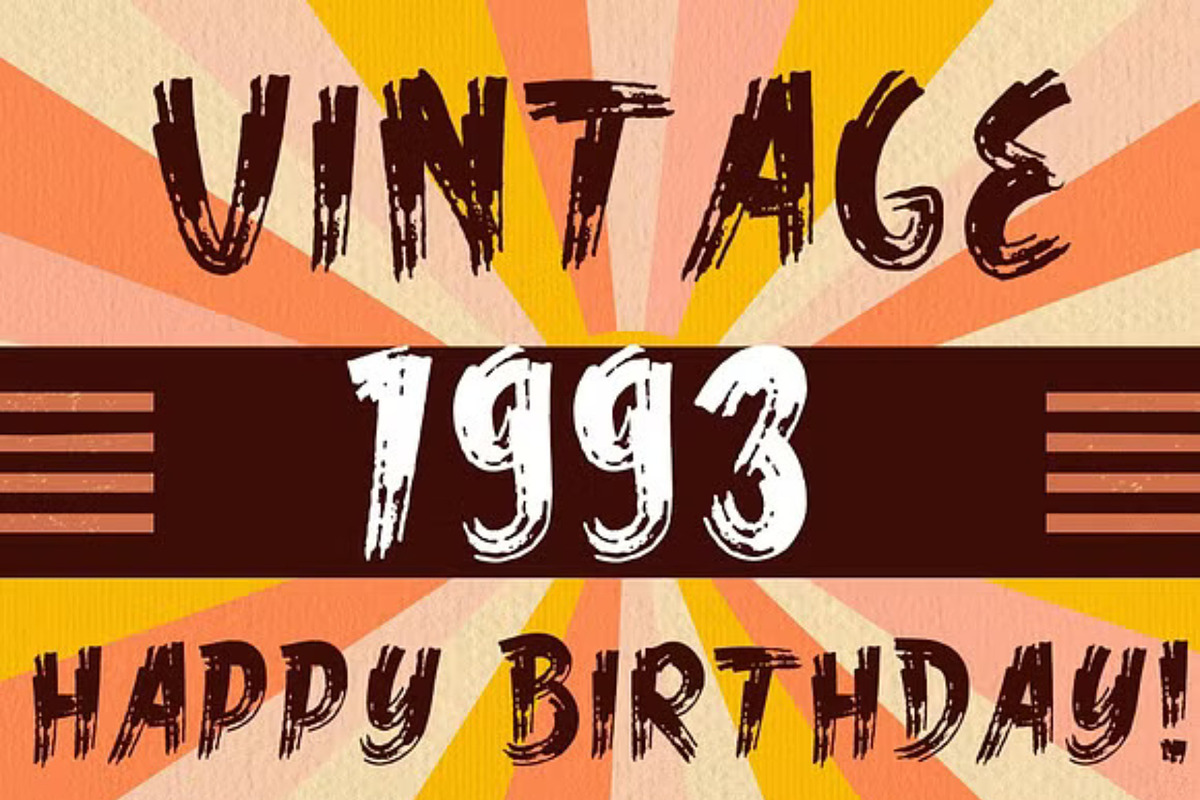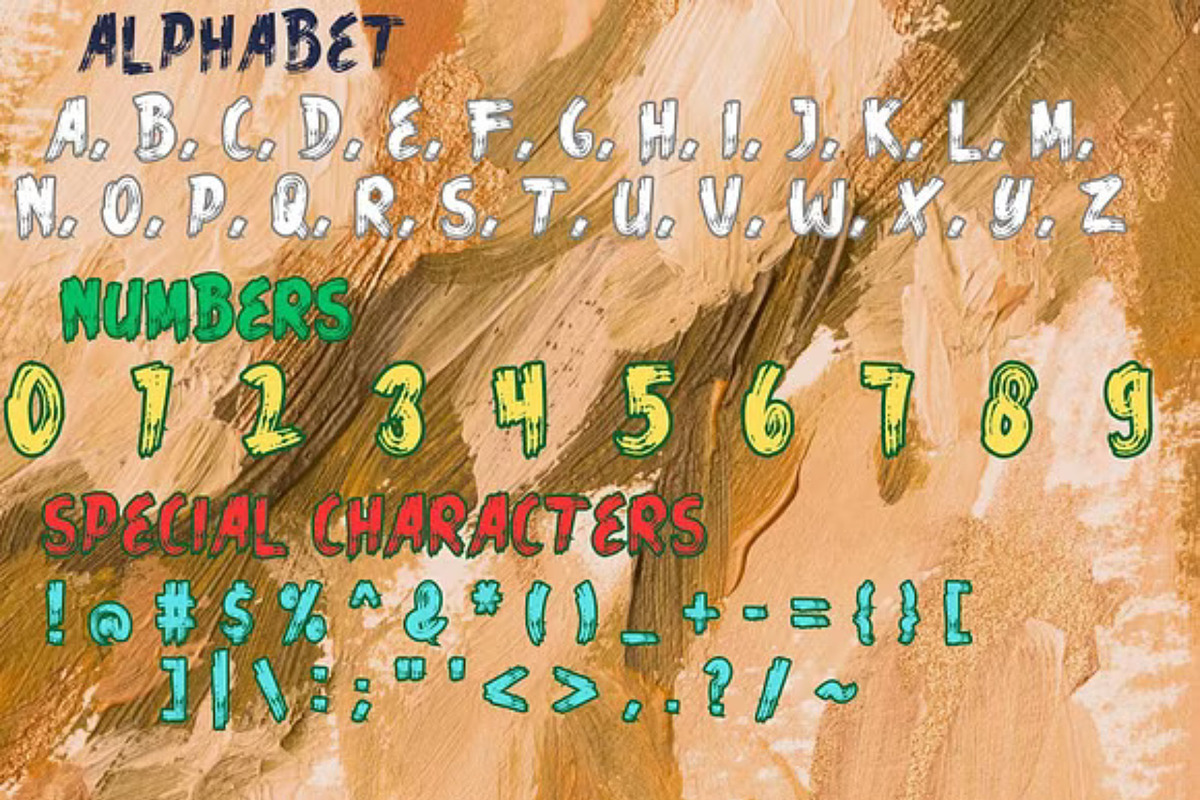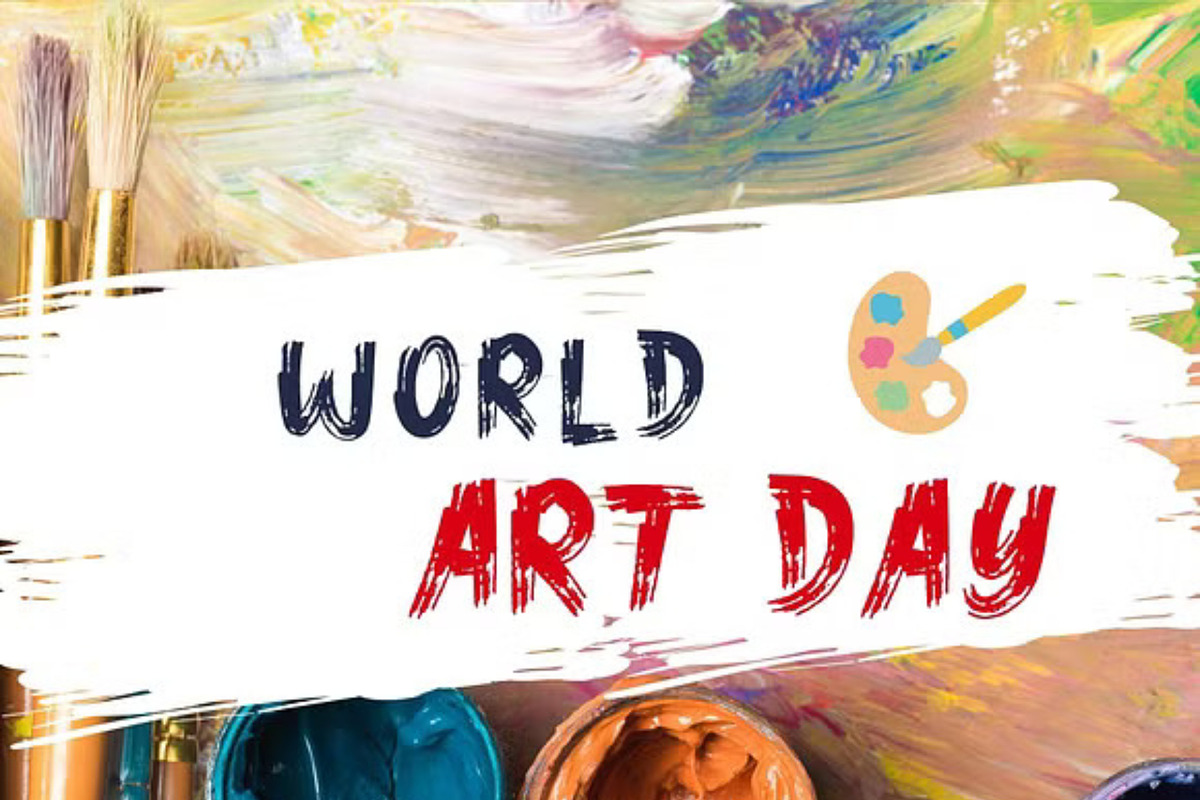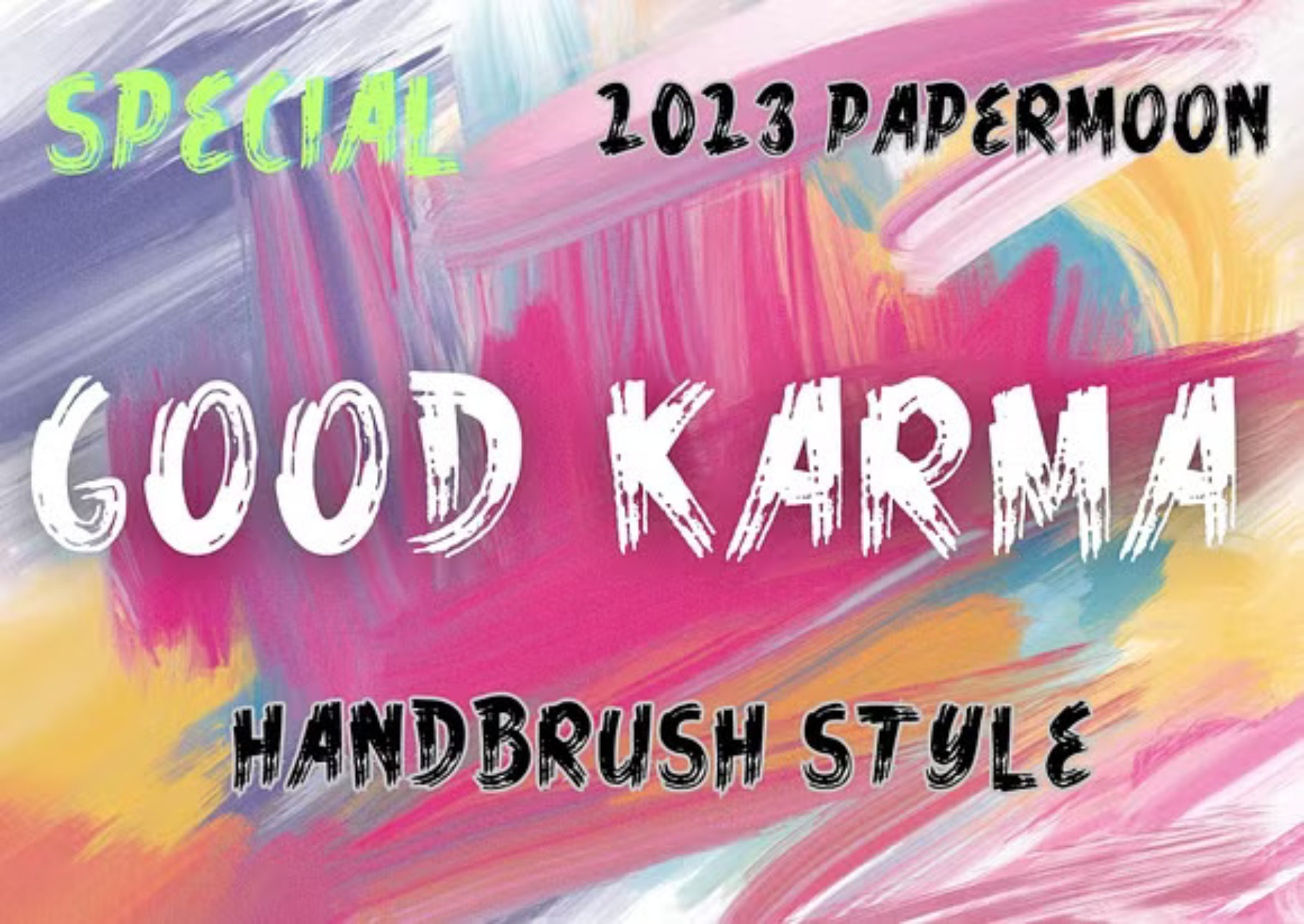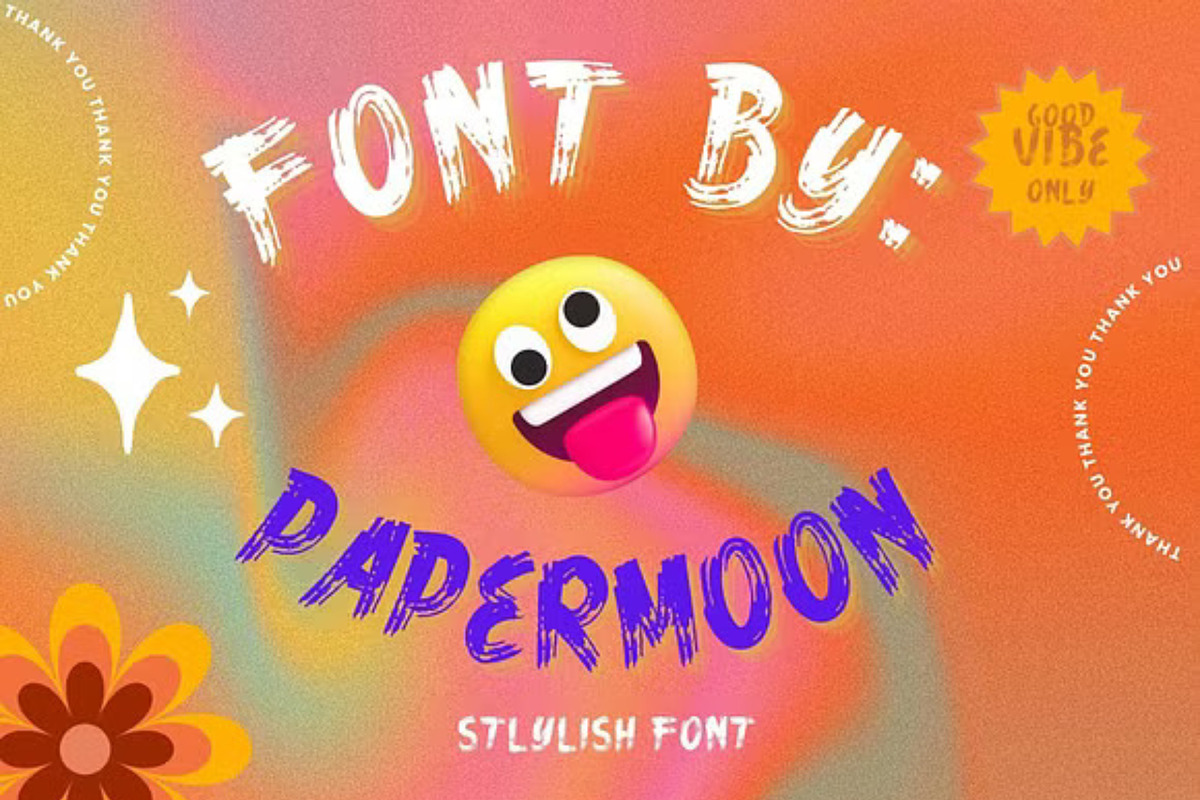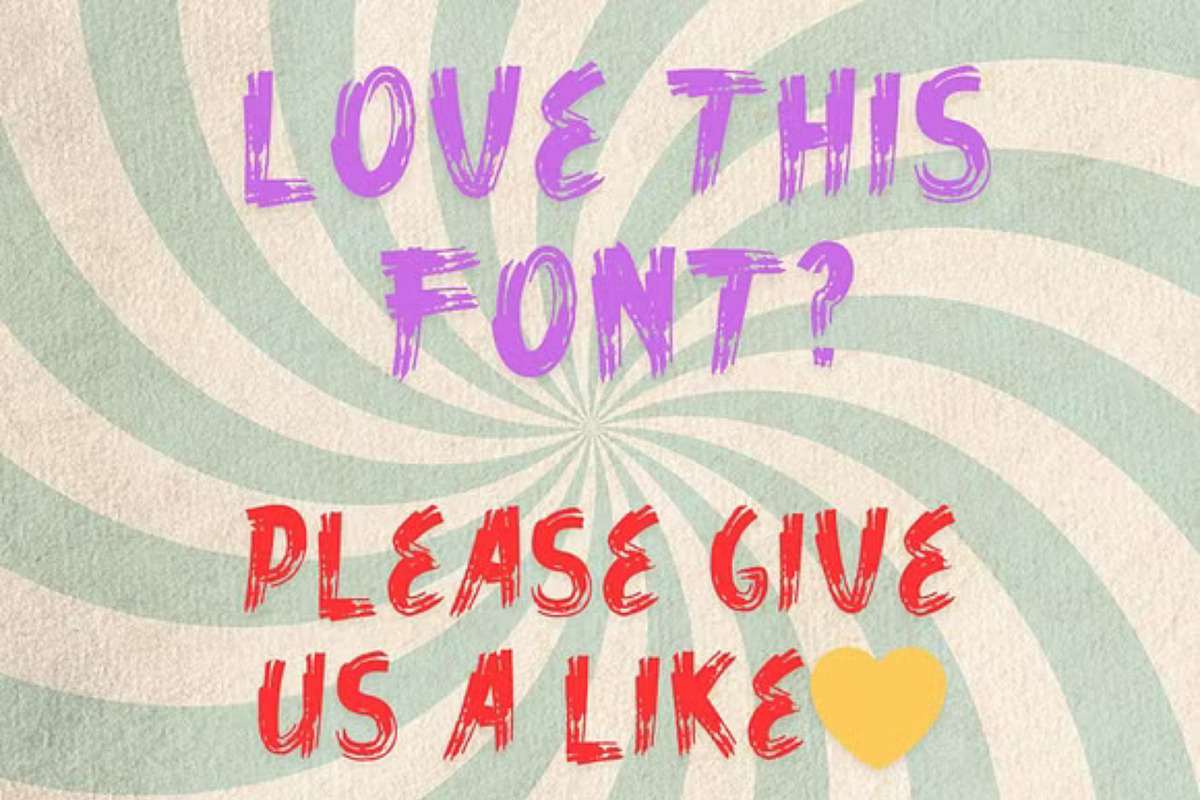
Good Karma Brush Font
Introducing Good Karma Handbrush Script Font: A Fresh and Captivating Typeface
Meet Good Karma, an exquisite handbrush script font designed to infuse authenticity and creativity into your projects. With its beautifully crafted characters, well-adjusted spacing, and distinctive style, Good Karma offers an elegant, textured, and rustic charm that stands out in any design.
Perfect for a wide range of creative applications, Good Karma Handbrush Script Font is ideal for branding, logotypes, stationery, business cards, signage, flyers, brochures, and much more. Its versatility makes it a great fit for various industries, including events, travel, hotels, musicians, cafes, packaging, and the food and beverage sector.
Embrace the limitless possibilities of design with Good Karma Handbrush Script Font—a typeface that brings rustic charm and elegance to every project!